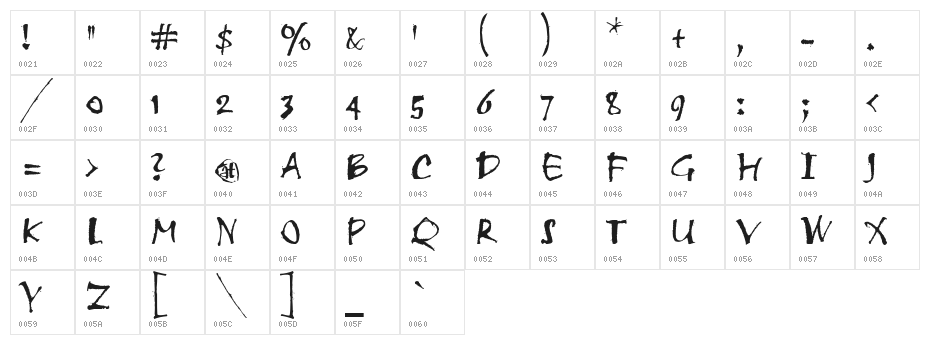
Scratch Font
Scratch Description
This font exhibits a raw, hand-drawn aesthetic with an irregular and expressive style. The characters have a rough, textured appearance, reminiscent of brush strokes or ink splatters. The uppercase and lowercase letters maintain a consistent yet unpredictable form, adding a dynamic and energetic feel. Numbers and special characters follow the same artistic approach, contributing to the overall cohesive look. The font's unique personality makes it stand out, offering a sense of creativity and spontaneity.
| Use Case | Logos, Headlines, Posters |
| Proposed Projects | Ideal for artistic projects, album covers, posters, and any design requiring a bold, creative touch. |